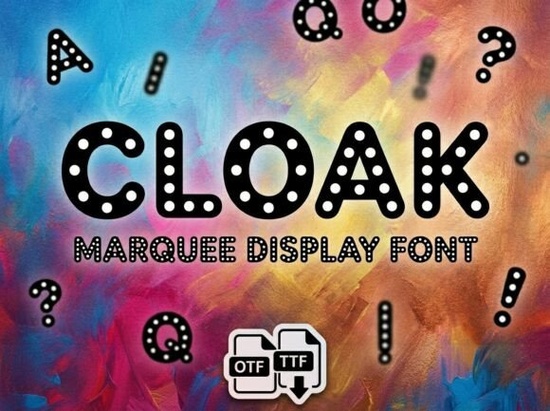
If you're looking for a display font that instantly adds vintage theater flair to your designs, Cloak Font is worth a closer look. With its bold, rounded letterforms and rhythmic “light bulb” dots, it mimics the nostalgic glow of old-school marquee signs perfect for anyone creating circus posters, retro party invites, or cinematic social media graphics. Whether you run a small event business, sell custom merch, or just love crafting with personality, Cloak brings Broadway-style charm without needing extra embellishments.
What makes Cloak Font stand out for themed designs?
Unlike many decorative fonts that rely on complex outlines or textures, Cloak achieves its impact through clean contrast and clever detailing. The thick strokes paired with evenly spaced dot accents create a striking black-and-white visual that reads well even at smaller sizes ideal for print-on-demand mugs, t-shirts, or digital banners. Its high legibility within a stylized form means you don’t have to sacrifice clarity for character.
For designers working on entertainment-related projects think burlesque nights, vintage carnivals, or film festival promos Cloak offers instant atmosphere. It’s also surprisingly versatile: pair it with minimalist sans-serifs for modern-retro contrast, or layer it over muted photo backgrounds for that classic Hollywood poster vibe.
How does Cloak compare to other display fonts?
If you’ve used playful display fonts like Boogie Blast or Momo, you’ll notice Cloak leans more theatrical than cartoonish. While Boogie Blast has bouncy energy and Momo offers soft curves with a hand-lettered feel, Cloak channels structured nostalgia closer in spirit to vintage signage than casual doodles.
Similarly, fonts like Rotzky and Hello Bold deliver strong presence but with different aesthetics: Rotzky uses geometric distortion for a futuristic edge, and Hello Bold goes for ultra-thick simplicity without ornamentation. Cloak fills a specific niche illuminated elegance that’s hard to replicate with standard bold fonts.
And if you enjoy the mid-century charm of Vespa, which blends Italian retro styling with clean lines, you might appreciate how Cloak trades scooter-era sleekness for stage-lit drama.
Where can you actually use Cloak Font?
Thanks to its clear silhouette and built-in “lighting” effect, Cloak works beautifully in both digital and physical formats:
- Event branding: Posters, tickets, and backdrops for themed parties, theater productions, or vintage fairs.
- Social media: Instagram story headers, YouTube thumbnails, or TikTok text overlays that need instant visual pop.
- Merchandise: T-shirts, tote bags, or enamel pins featuring short phrases like “Showtime!” or “Step Right Up.”
- Print crafts: Invitations, greeting cards, or scrapbook titles where a touch of old-Hollywood glam elevates the mood.
Because it’s a display font, it’s best reserved for headlines and short phrases avoid using it for body text. But for grabbing attention? It’s hard to beat.
Is Cloak Font beginner-friendly?
One tip: because of the dot pattern along the edges, avoid placing Cloak over busy backgrounds. A solid color or subtle gradient lets those “bulbs” shine literally. Also, test print resolution if you’re using it for physical products; the fine dot details hold up well at 300 DPI or higher.
Final checklist before you buy
Before adding Cloak Font to your toolkit, ask yourself:
- Do I need a thematic headline font with built-in visual interest?
- Will my project benefit from vintage theater or circus aesthetics?
- Am I designing for short-form text (logos, titles, slogans) rather than paragraphs?
- Do I already own similar display fonts or is this filling a gap in my collection?
If most answers are yes, Cloak could be the perfect accent for your next creative project. And if you’re exploring options, check out related styles like Vespa or Hello Bold to see how different display fonts serve different moods.